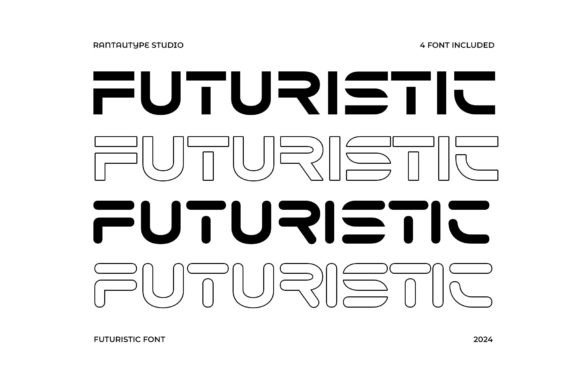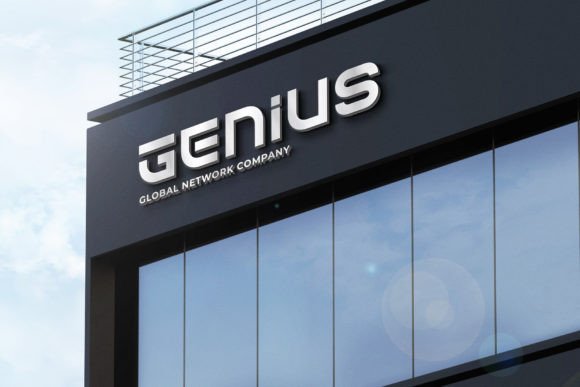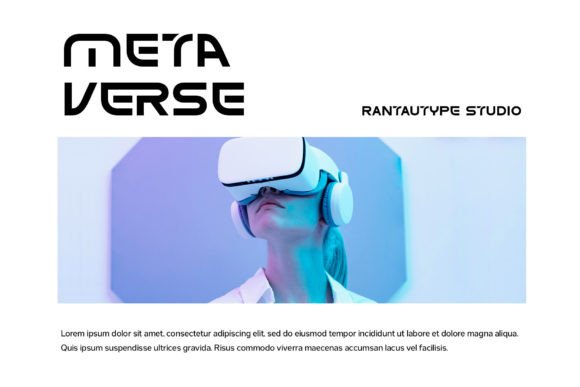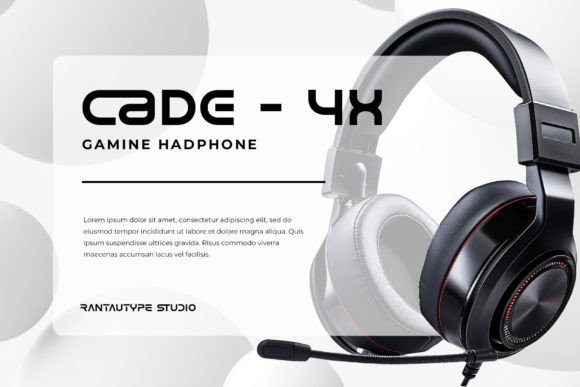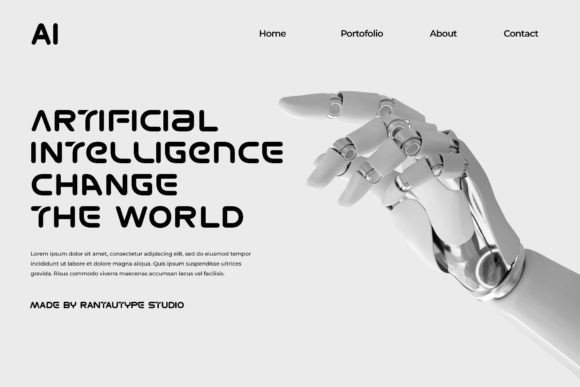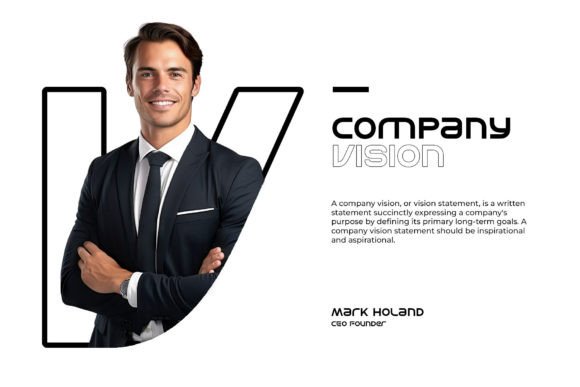
Introduction to Mooner Font
Have you ever stared at a blank page, trying to conjure up the perfect design to capture your audience’s attention? The pressure to create something unique and eye-catching can be overwhelming, especially when working on a high-profile project. But what if you had a secret design resource that could give your creative endeavors a sleek, futuristic edge?
| 👤 Author | RantauType |
Enter the Mooner Font, a modern and sophisticated typeface that’s sure to elevate your designs to new heights. With its minimalist aesthetic and elegant character set, the Mooner Font is the perfect choice for any creative project that demands a high-quality, futuristic look. Whether you’re designing logos, advertisements, or product labels, the Mooner Font is a valuable addition to your design toolkit.
As a versatile and highly customizable font, the Mooner Font offers a range of features that make it an indispensable design resource. From its transparent background to its extensive multilingual support, this font is the perfect solution for designers who demand the highest level of quality and flexibility in their work.
Key Features of Mooner Font
- High-Quality Design: Mooner Font offers a high-quality design perfect for any creative project, with a clean and modern aesthetic.
- Transparent Background: This design resource features a transparent background, making it easy to customize and integrate into any design.
- High Resolution: Mooner Font is designed at a high resolution of 300 DPI, making it perfect for printing and large-scale designs.
- Unique Characteristics: The font features a unique blend of modern and vintage elements, making it an excellent choice for designers looking to add a touch of elegance to their creative project.
Honest Review: Mooner Font
I recently stumbled upon the Mooner Font, and I have to say, I’m impressed. As a designer, I’m always on the lookout for high-quality design resources that can elevate my creative projects. The Mooner Font is a perfect addition to any designer’s toolkit.
- Unique and stylish design: The Mooner Font has a distinct, modern look that sets it apart from other fonts. It’s perfect for designers who want to add a touch of elegance to their projects.
- Transparent background: This feature makes it easy to customize and integrate the font into any design, whether it’s a logo, poster, or website.
- Limited font sizes: While the Mooner Font is versatile, it may not be suitable for very large or very small font sizes.
- No bold or italic options: If you need to emphasize text, you may need to look elsewhere.
Overall, I’m a big fan of the Mooner Font. It’s a high-quality design resource that’s perfect for creative projects. While it has some limitations, I believe the benefits far outweigh the drawbacks. If you’re a designer looking for a stylish and versatile font, I highly recommend giving the Mooner Font a try.
Mooner Font
For the most out of the Mooner Font, use it for creating high-quality graphics and designs with a transparent background. Common use cases include creating social media graphics, posters, and flyers. You can also use the Mooner Font for personal projects, such as designing business cards or wedding invitations.